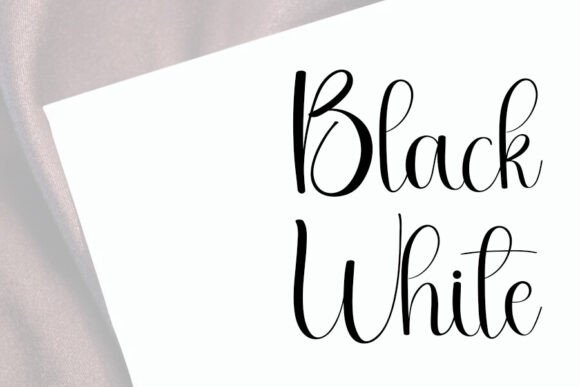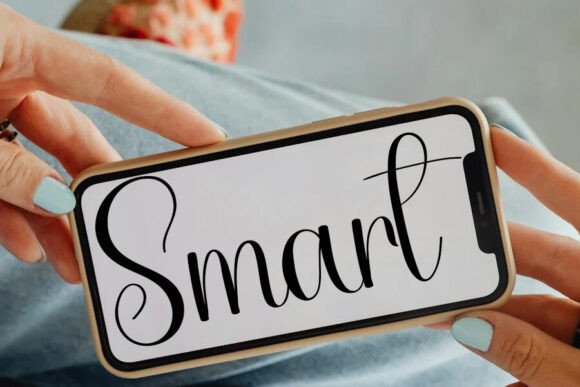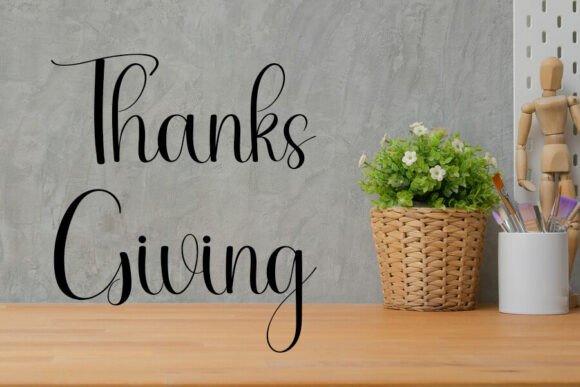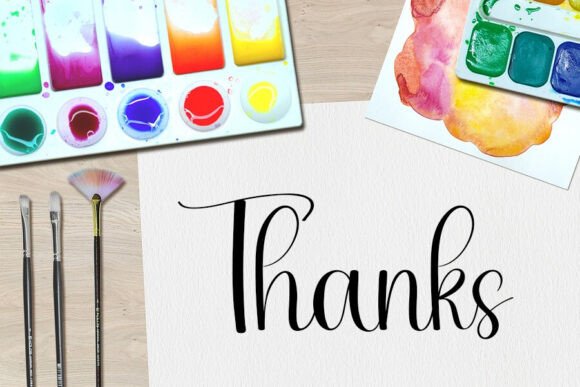
Introducing Farmhouse Font: Elevate Your Designs with Rustic Charm
Are you a designer, crafter, or business owner looking for a font that can add a touch of rustic charm to your visual communication? Look no further than Farmhouse Font, a captivating and vibrant typeface that’s perfect for a wide range of design projects. From YouTube banners to wedding invitations, ID cards, flyers, and crafts, Farmhouse Font is the ideal choice for anyone seeking to infuse their work with a charming appeal.
The Beauty of Simplicity
Farmhouse Font embodies an exquisite simplicity that’s both elegant and effective. Its unique character reflects a perfect harmony between aesthetics and readability, making it an indispensable companion for your creative journey. With Farmhouse Font, you can transform your visual communication into a stunning work of art that captures the attention of your audience and leaves a lasting impression.
Farmhouse Font is a versatile typeface that can be used for a wide range of design projects, including:
- YouTube banners: Create eye-catching banners that reflect your brand’s personality and style.
- Cover logo mockups: Design professional-looking logo mockups that showcase your brand’s identity.
- Wedding invitations: Add a touch of rustic charm to your wedding invitations and make them truly unforgettable.
- ID cards: Create secure and stylish ID cards that reflect your brand’s image.
- Flyers: Design attention-grabbing flyers that promote your business or event.
- Crafts: Add a personal touch to your crafts and make them truly unique.
Why Choose Farmhouse Font?
So, why choose Farmhouse Font over other typefaces? Here are just a few reasons:
- Unique character: Farmhouse Font has a distinctive character that sets it apart from other fonts.
- Readability: Its simple and elegant design makes it easy to read, even at small sizes.
- Versatility: Farmhouse Font can be used for a wide range of design projects, from digital to print.
- Elegance: Its rustic charm and sophisticated design make it perfect for businesses and individuals seeking to elevate their brand.
How Farmhouse Font Can Elevate Your Business
Farmhouse Font is more than just a typeface – it’s a catalyst for growth and evolution. By incorporating Farmhouse Font into your visual communication, you can:
- Enhance your brand’s image: Create a consistent and professional image that reflects your brand’s values and personality.
- Stand out from the competition: Use Farmhouse Font to differentiate your business from others and make your brand more memorable.
- Improve engagement: Its charming appeal and readability make it easier to engage with your audience and convey your message.
In conclusion, Farmhouse Font is a captivating and vibrant typeface that’s perfect for designers, crafters, and business owners seeking to add a touch of rustic charm to their visual communication. Its unique character, readability, and versatility make it an indispensable companion for any creative journey. Whether you’re looking to elevate your brand, stand out from the competition, or simply create stunning designs, Farmhouse Font is the ideal choice. So why wait? Discover the beauty of Farmhouse Font and transform your designs today!